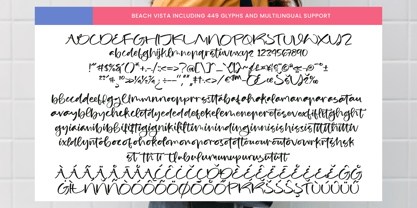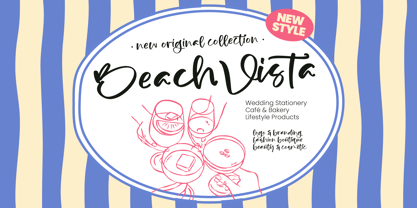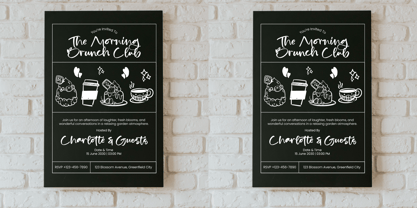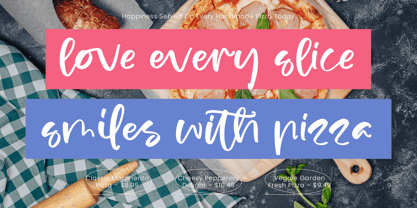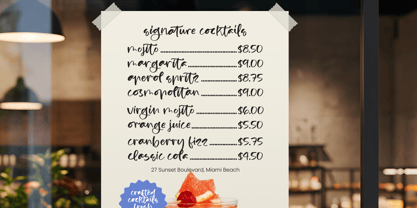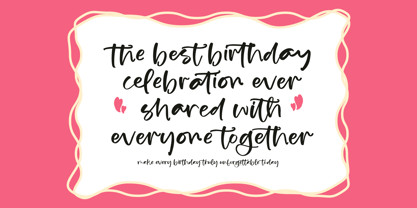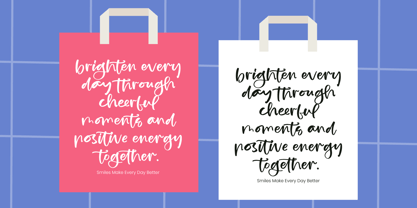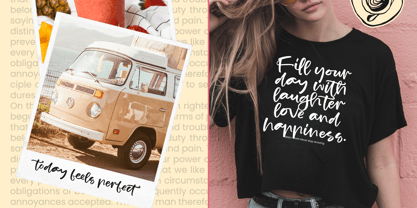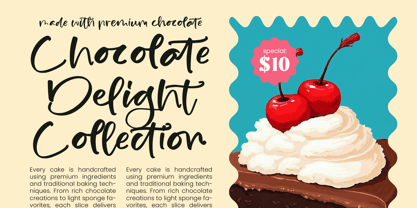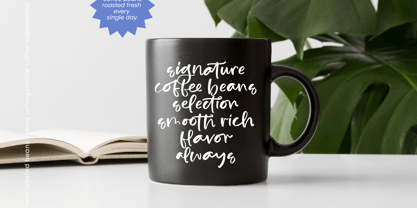
Beach Vista
Die Schriftfamilie Beach Vista wurde von Heru Utama Putra entworfen und von Stylishtype Studio veröffentlicht. Beach Vista enthält 2 Stile und Familienpaketoptionen. Mehr über diese Familie
Capture the effortless essence of a sun-drenched afternoon with the soulful strokes of Beach Vista, a typeface designed to breathe life into every project. This organic script offers a refreshing and authentic touch that transforms digital text into a personalized visual experience.
Inspired by the relaxed rhythm of coastal living and spontaneous ink sketches, Beach Vista evokes the warmth of a seaside retreat. The fluid movement of each character was meticulously crafted to replicate the natural flow of human handwriting, providing an inviting atmosphere for modern creative works.
Designer: Heru Utama Putra
Foundry: Stylishtype Studio